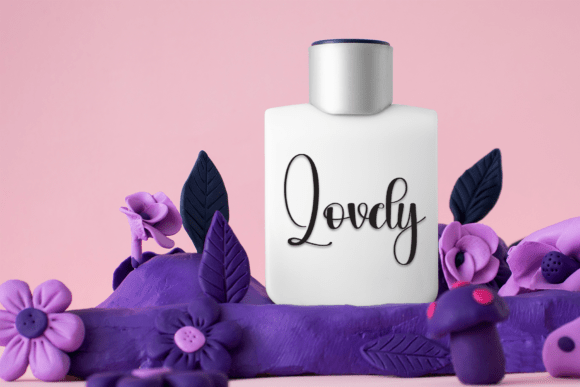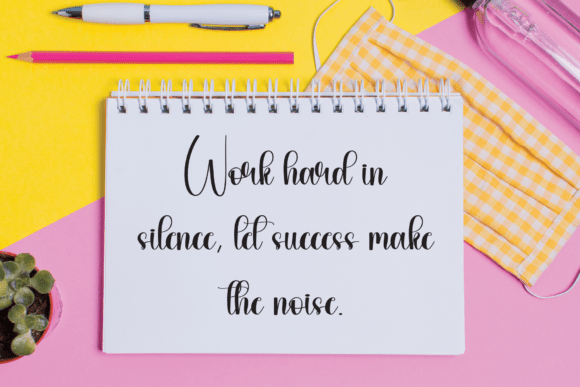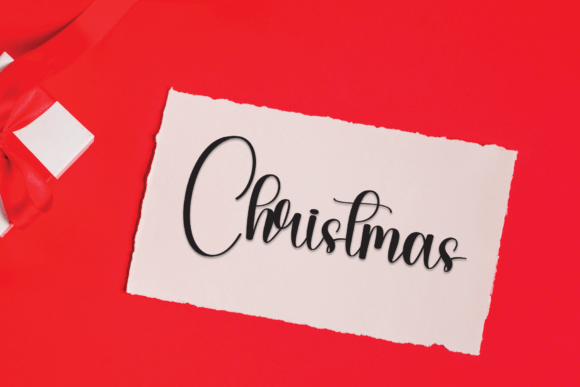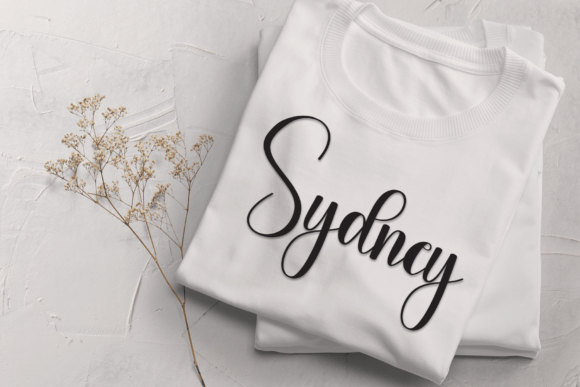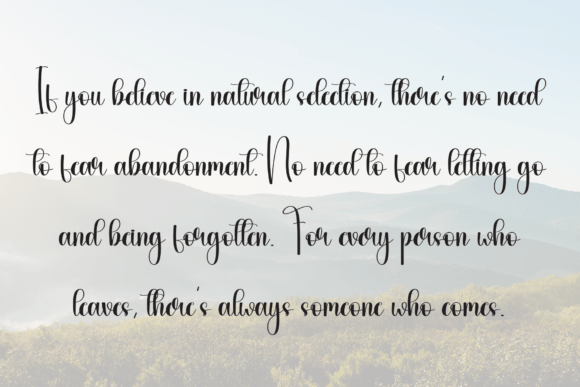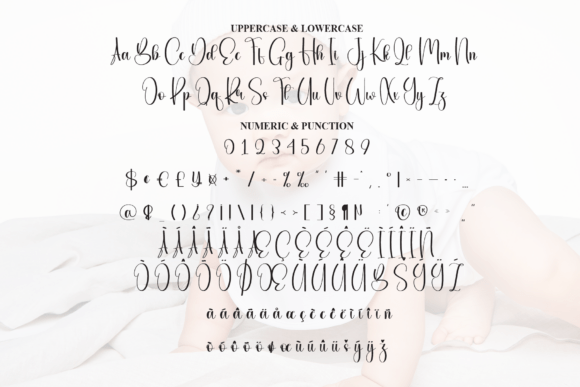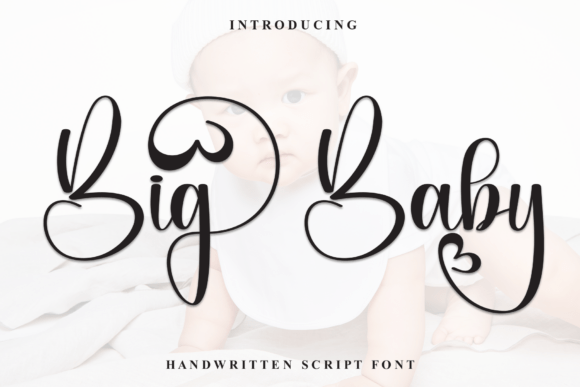
The Big Baby Font: Elevating Designs with Elegance and Charm
I still remember the design project that led me to discover the Big Baby font. I was working on a luxury brand’s invitation suite, and my client requested a font that exuded sophistication and modernity. After hours of scouring font libraries, I stumbled upon Big Baby, and it instantly clicked. Its elegant script and fluid curves perfectly captured the brand’s essence, and I knew I’d found the perfect fit.
A Closer Look: What I Love About Big Baby
Big Baby is more than just a pretty font – it’s a design powerhouse. Here are the features that make it shine:
• ✨ Elegant script with graceful strokes and fluid curves
• ✅ Carefully crafted letterforms for a refined look
• 🌟 Natural flow and polished details for a sophisticated touch
• 💡 Versatile and adaptable for various design projects
The Not-So-Perfect: A Few Quirks to Consider
No font is perfect, and Big Baby has a few minor limitations:
• 🤔 Limited use in very small font sizes, as some details may get lost
• ⚠️ Not ideal for body text, as it’s best suited for headlines and titles
Exploring Alternatives: Similar Fonts to Big Baby
If you love Big Baby, you might also enjoy these similar fonts:
• Lorake: A modern script font with a similar elegant feel, ideal for luxury brands and high-end designs
• Carolyna Pro: A refined script font with a vintage touch, perfect for wedding invitations and formal events
• Alex Brush: A whimsical script font with a hand-drawn feel, great for creative projects and social media graphics
• Great Vibes: A stylish script font with a relaxed, modern vibe, suitable for branding and advertising designs
The Story Behind Big Baby: Designer Inspiration
Big Baby was crafted with a passion for elegant typography and a desire to create a font that blends traditional calligraphy with modern flair. The designer aimed to create a font that would add a touch of sophistication to any design project, while still feeling approachable and versatile.
What type of projects is Big Baby best suited for? Big Baby excels in projects that require elegance and sophistication, such as luxury branding, wedding invitations, and high-end advertising.
Can I use Big Baby for body text? While Big Baby is primarily designed for headlines and titles, it can be used for short paragraphs of body text. However, it’s recommended to use a clear, readable font for longer blocks of text.
Does Big Baby support OpenType features? Yes, Big Baby supports OpenType features, including ligatures, stylistic alternates, and glyphs. This allows for greater creative control and customization.
Is Big Baby suitable for digital use? Absolutely! Big Baby is designed to look great on both digital and print platforms. Its clear, polished details ensure it remains legible even at smaller font sizes.